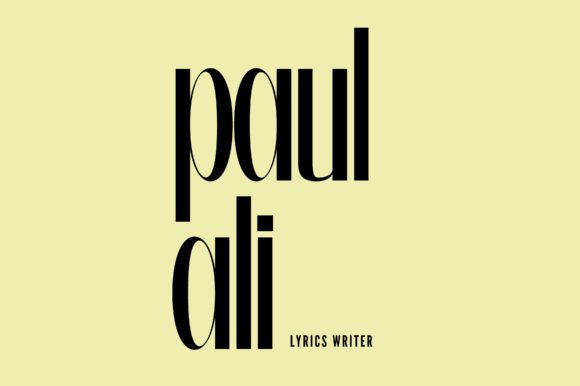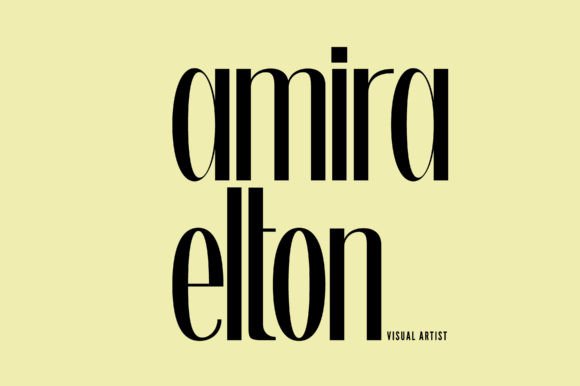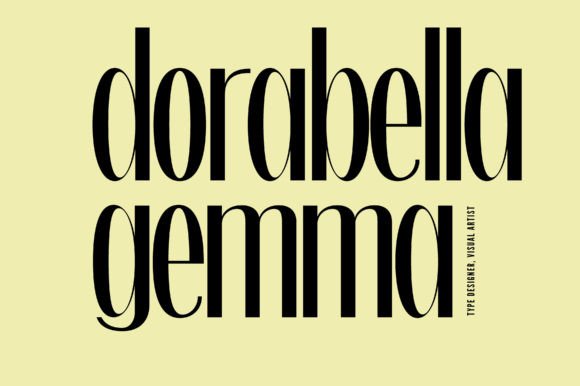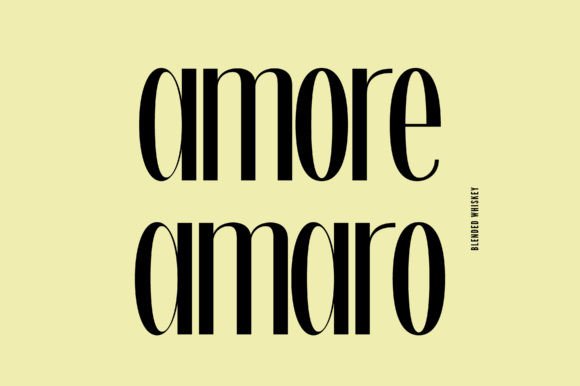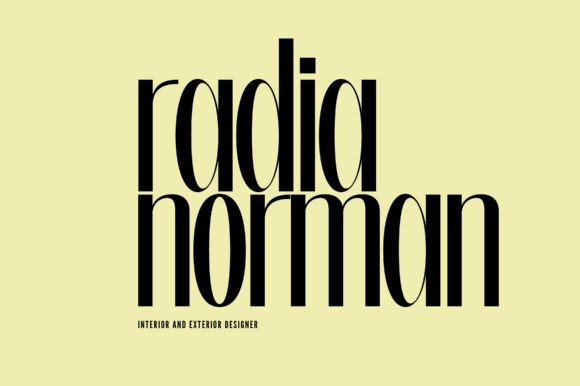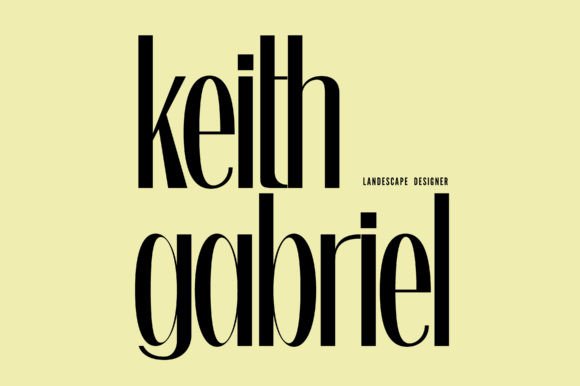
Introducing Alidad Font: Elevate Your Designs with Elegance and Versatility
In the world of typography, a font can make all the difference in the success of a design project. A well-crafted font can elevate your work, convey your message with clarity, and leave a lasting impression on your audience. Meet Alidad, a stunning sans serif font that embodies the perfect blend of elegance, versatility, and modernity. Designed with delicate lines and minimalist styling, Alidad is poised to become your go-to font for a wide range of design projects.
A Modern Sans Serif Font with a Timeless Appeal
Alidad’s design is characterized by its fluid curves and minimalist aesthetic, making it an excellent choice for designers seeking a modern and sophisticated look. The font’s delicate lines and subtle curves create a refined and elegant appearance, perfect for adding a touch of luxury to your designs. Whether you’re working on a branding project, editorial layout, or website design, Alidad’s timeless appeal ensures that your work will remain stylish and relevant for years to come.
Unleash Your Creativity with Alidad’s Extensive Glyph Set
One of Alidad’s standout features is its extensive glyph set, comprising over 604 glyphs. This vast collection includes uppercase and lowercase letters, numbers, punctuation, and a wide range of special characters and symbols. This level of versatility makes Alidad an excellent choice for designers working on projects that require a high degree of customization. With Alidad, you can experiment with different languages, writing systems, and design styles, pushing the boundaries of your creativity.
Multi-Lingual Support for Global Design Projects
In today’s interconnected world, designers often work on projects that require support for multiple languages and writing systems. Alidad’s multi-lingual support feature ensures that you can use the font for a variety of languages, making it an excellent choice for global design projects. Whether you’re designing for a multinational corporation or a local business with international aspirations, Alidad’s versatility has got you covered.
Elegance and Sophistication for Branding and Corporate Design
Alidad’s delicate design gives it a sophisticated and refined look, making it perfect for use in branding and corporate design. The font’s minimalist styling and fluid curves evoke a sense of elegance and luxury, ideal for high-end brands and businesses seeking to establish a strong visual identity. With Alidad, you can create stunning logos, business cards, and marketing materials that exude professionalism and style.
Perfect for Editorial and Publishing Projects
In addition to its applications in branding and corporate design, Alidad is also well-suited for editorial and publishing projects. The font’s clear and legible design makes it an excellent choice for body text, while its elegant appearance ensures that headlines and titles will stand out on the page. Whether you’re designing a magazine spread, book cover, or newspaper layout, Alidad’s versatility and sophistication make it an excellent choice.
Use Alidad for a Wide Range of Design Projects
Alidad’s versatility extends far beyond branding, corporate design, and editorial projects. The font’s modern feel and elegant appearance make it suitable for a wide range of design applications, including:
- Website design: Use Alidad to create stunning website headers, navigation menus, and body text.
- Logo design: Create memorable and stylish logos that showcase your brand’s personality.
- Print design: Use Alidad for business cards, brochures, and other print materials that require a touch of elegance.
- Packaging design: Add a touch of sophistication to your product packaging with Alidad’s refined design.
In conclusion, Alidad is a versatile and elegant sans serif font that is poised to become a valuable addition to any designer’s toolkit. With its extensive glyph set, multi-lingual support, and sophisticated design, Alidad is perfect for a wide range of design projects. Whether you’re a seasoned designer or a crafty DIY enthusiast, Alidad’s elegance and versatility make it an excellent choice for adding a touch of style and sophistication to your work.